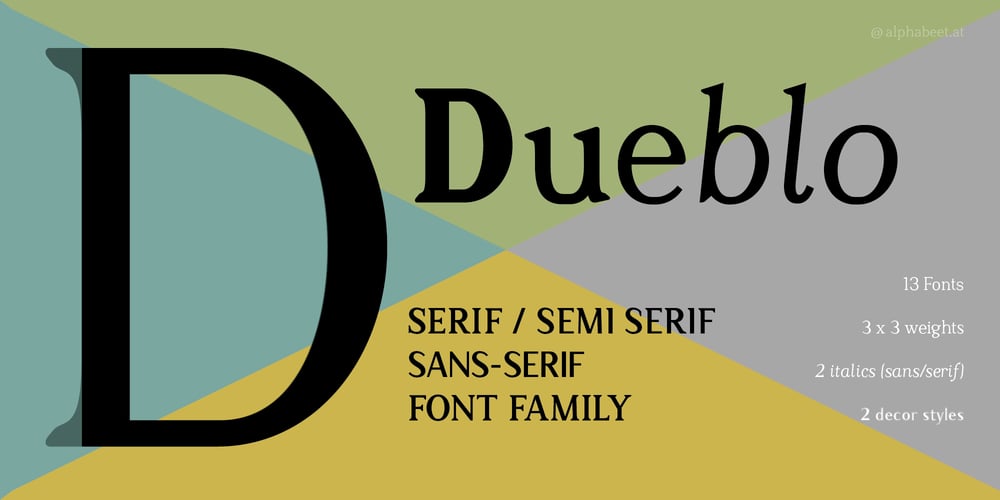
Dueblo Font Family was designed by Florian Kriegner and published by alphabeet.at. Dueblo contains 13 styles and family package options. Dueblo is a font family in serif, sans serif and semi serif with variability in weight and serifs. It’s a classical antiqua with a sans serif basis, a semi serif version, two decor styles for headlines and initials and the italics in sans and in serif. The small caps, alternates as well as other useful optional and contextual open type features are included in the fonts. It has been in development since 2012 and in use for several projects and publications since 2015. It was worked on until 2020, the cyrillic and greek letters were added, and it was built up in a new and modern way. Now it’s really ready for building words and paragraphs.